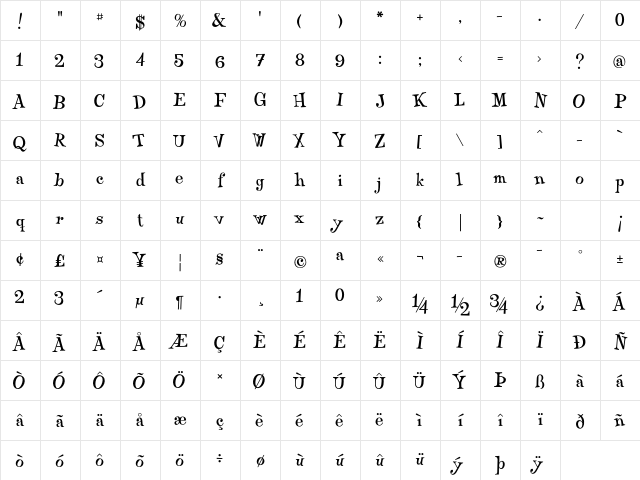
Qraxy Regular
Foundry: Mans Greback
Designer: Mans Greback
Design Context for Qraxy
Qraxy is a composed and adaptable typeface that performs quietly and consistently across a wide range of design contexts.
Who designed the Qraxy Regular font?